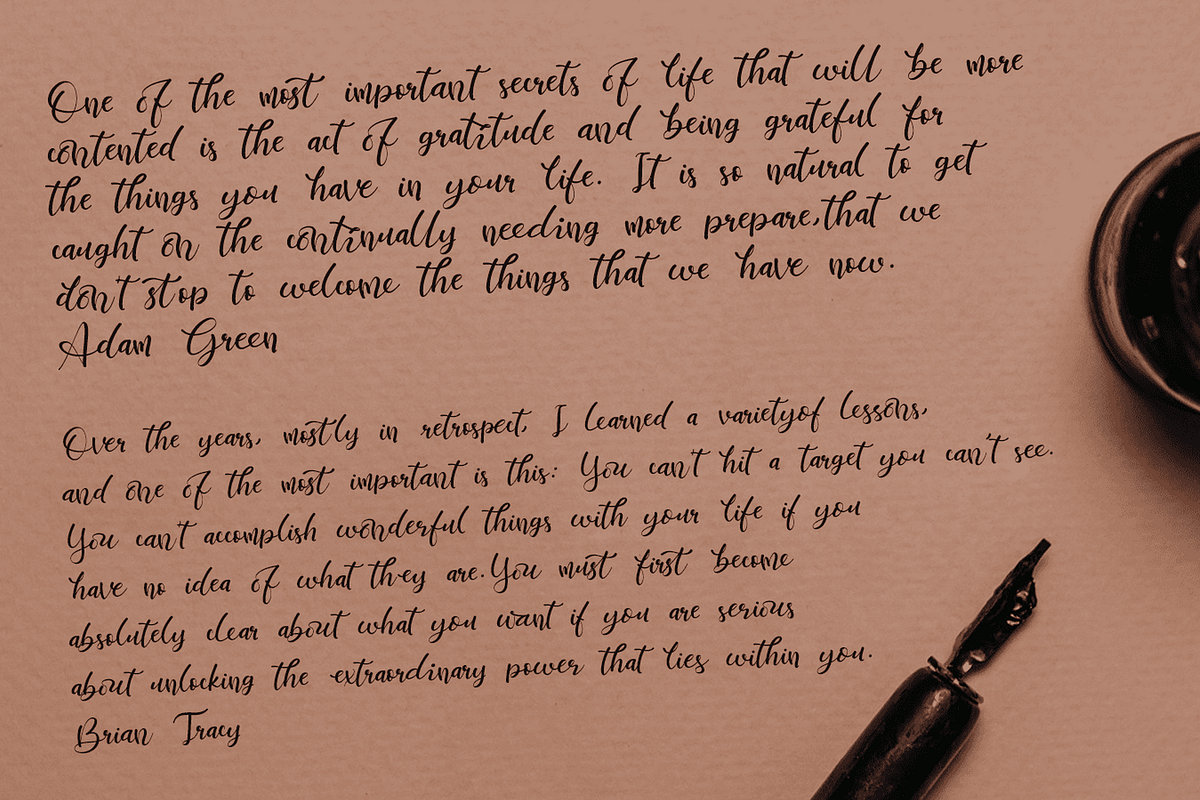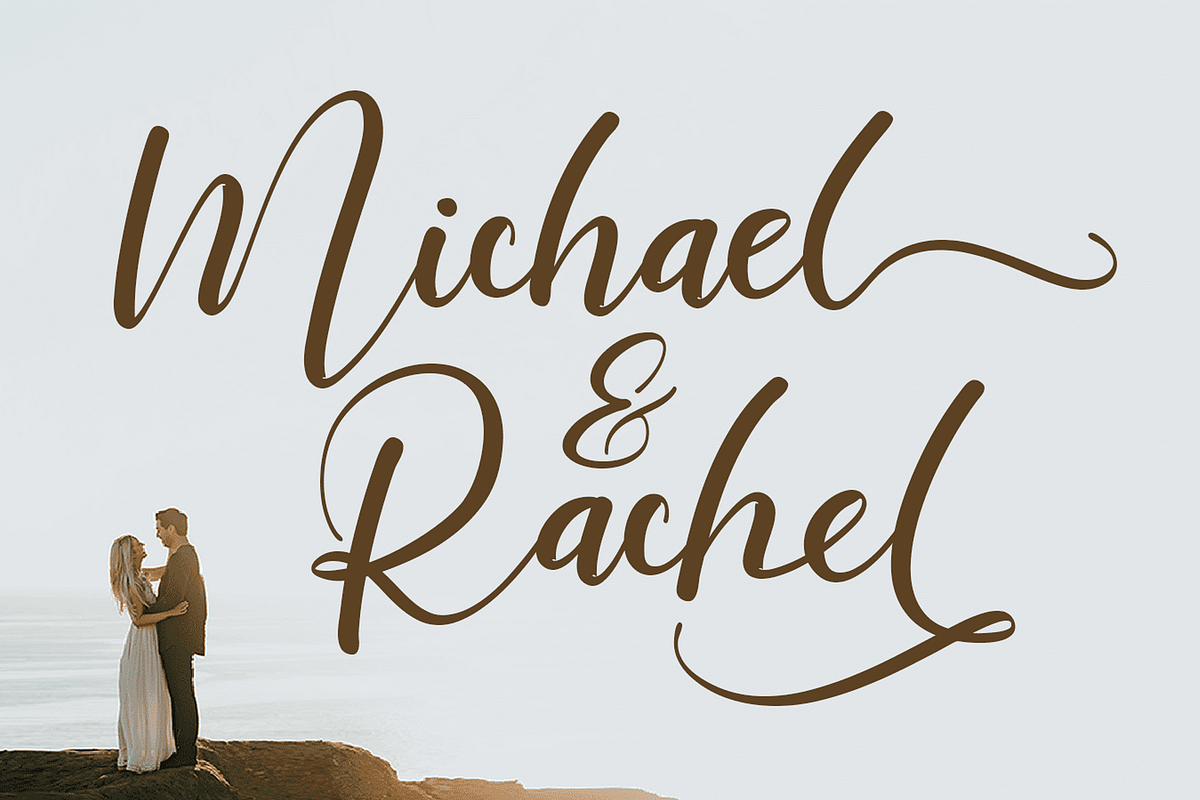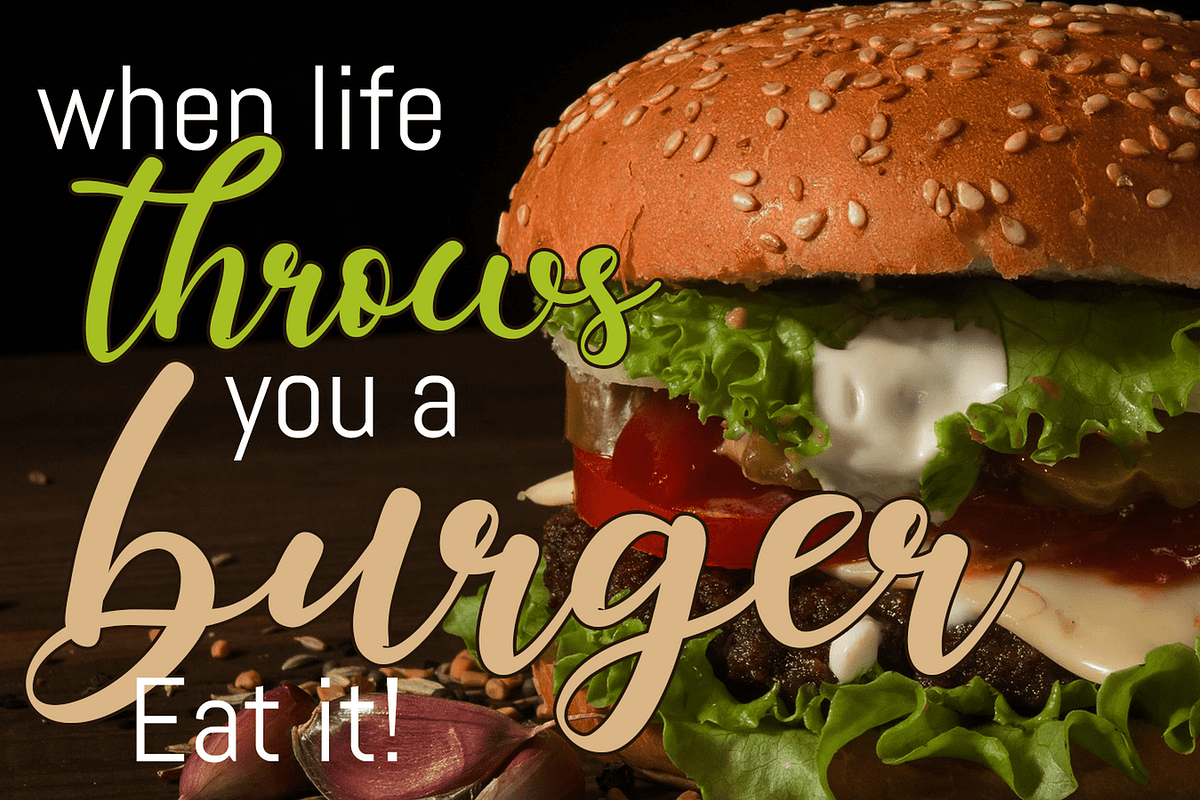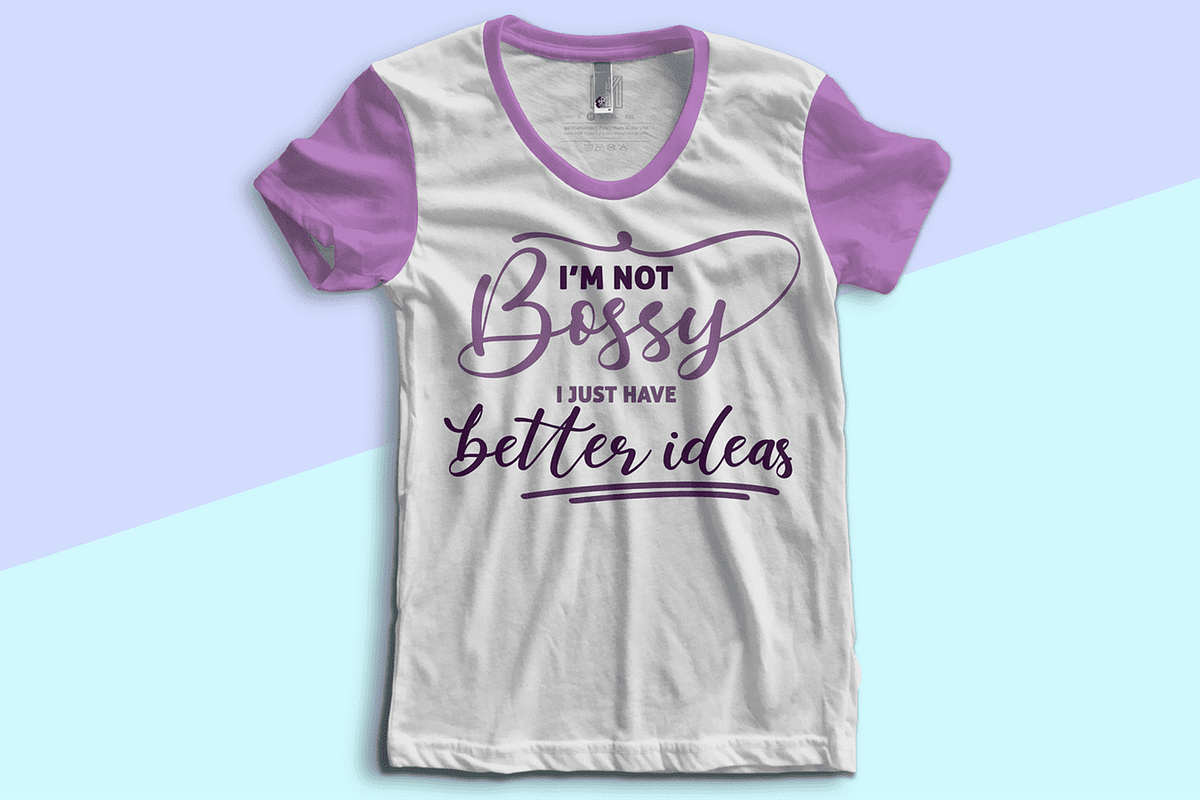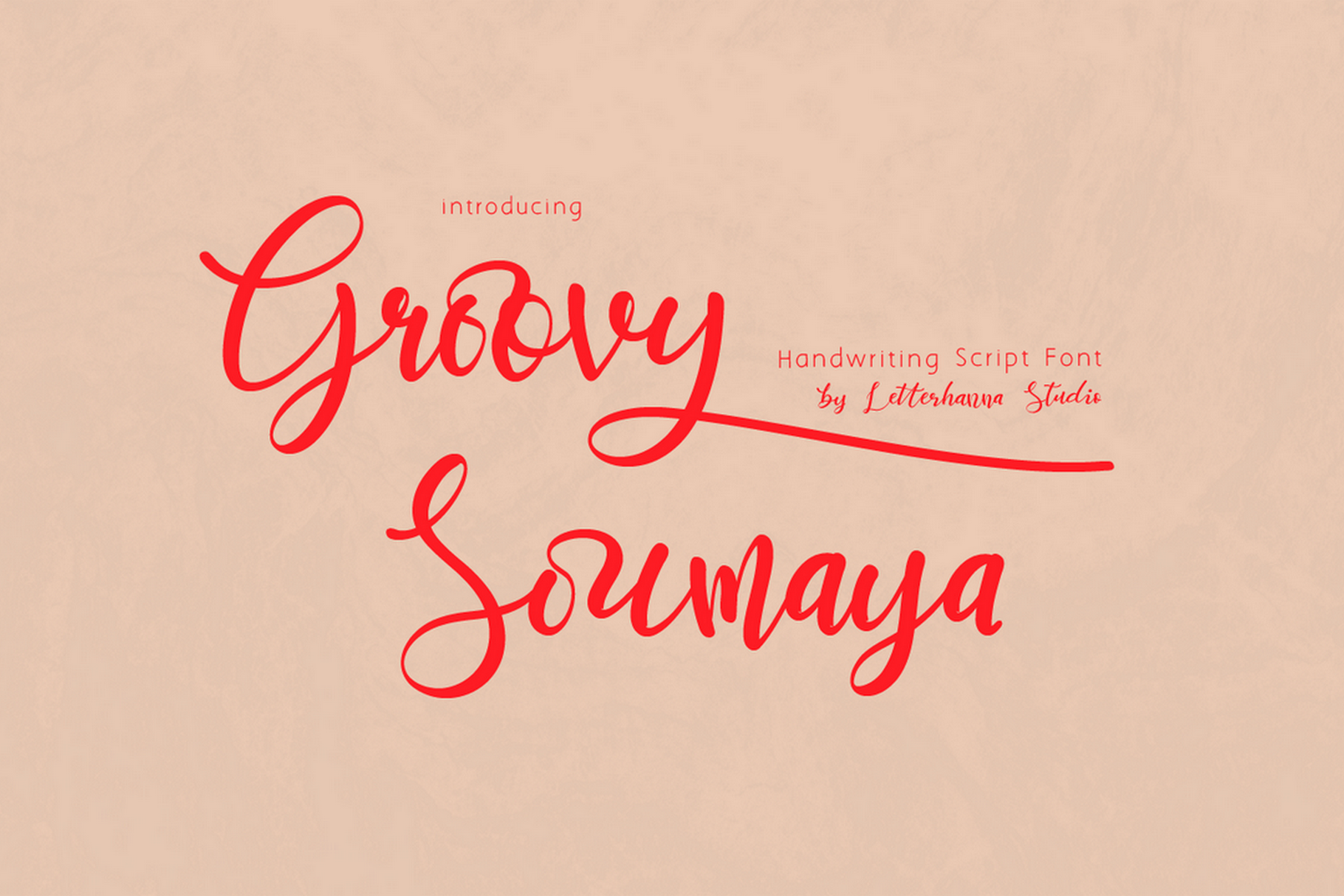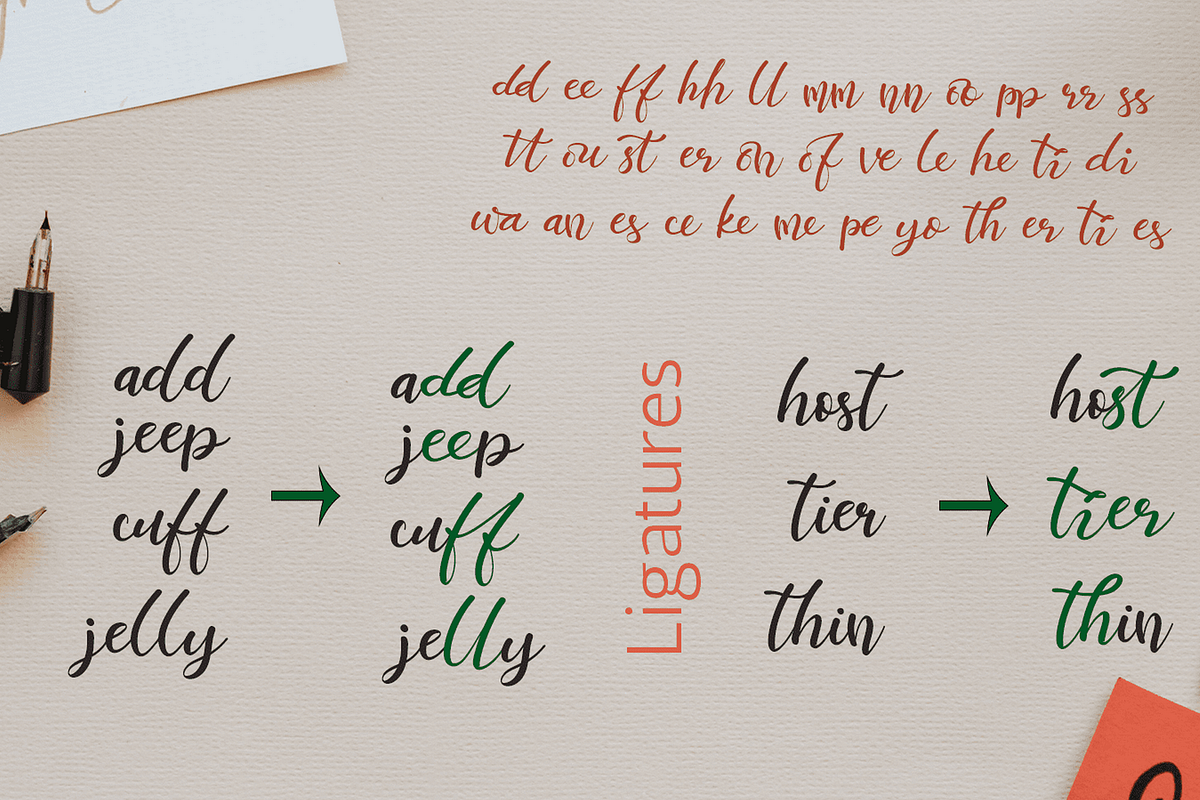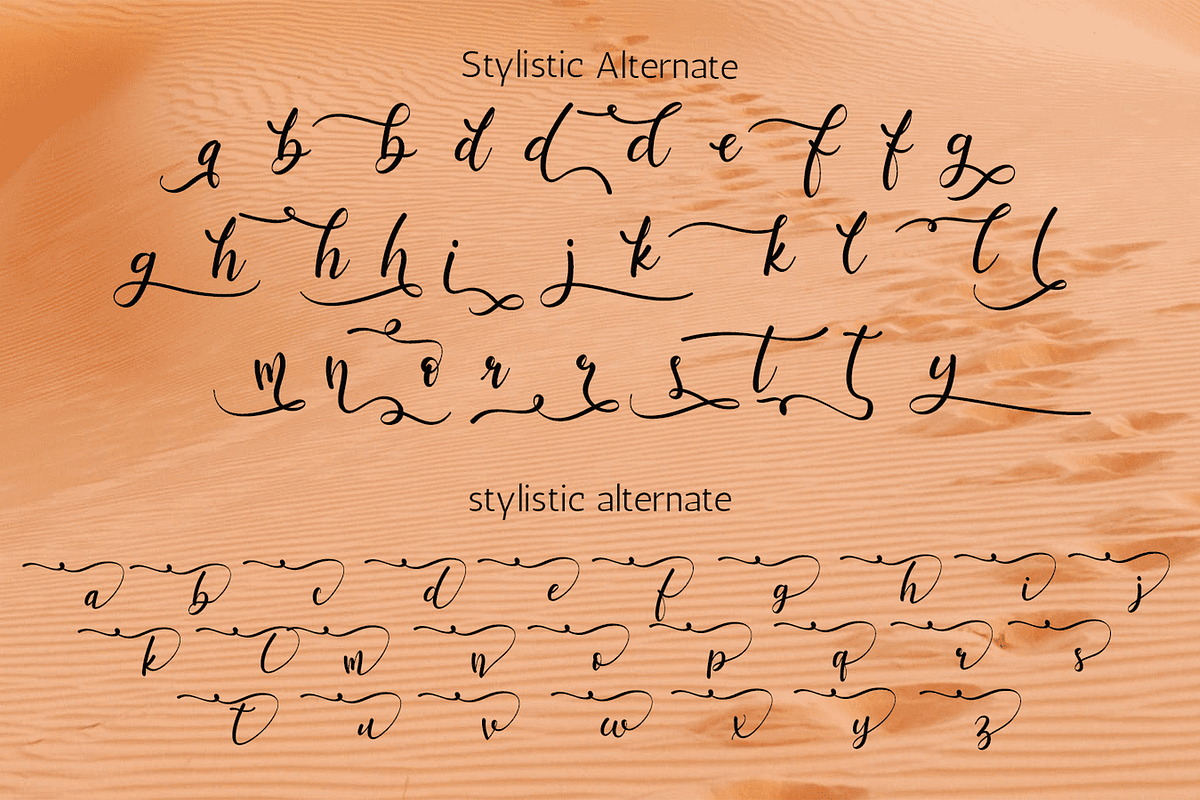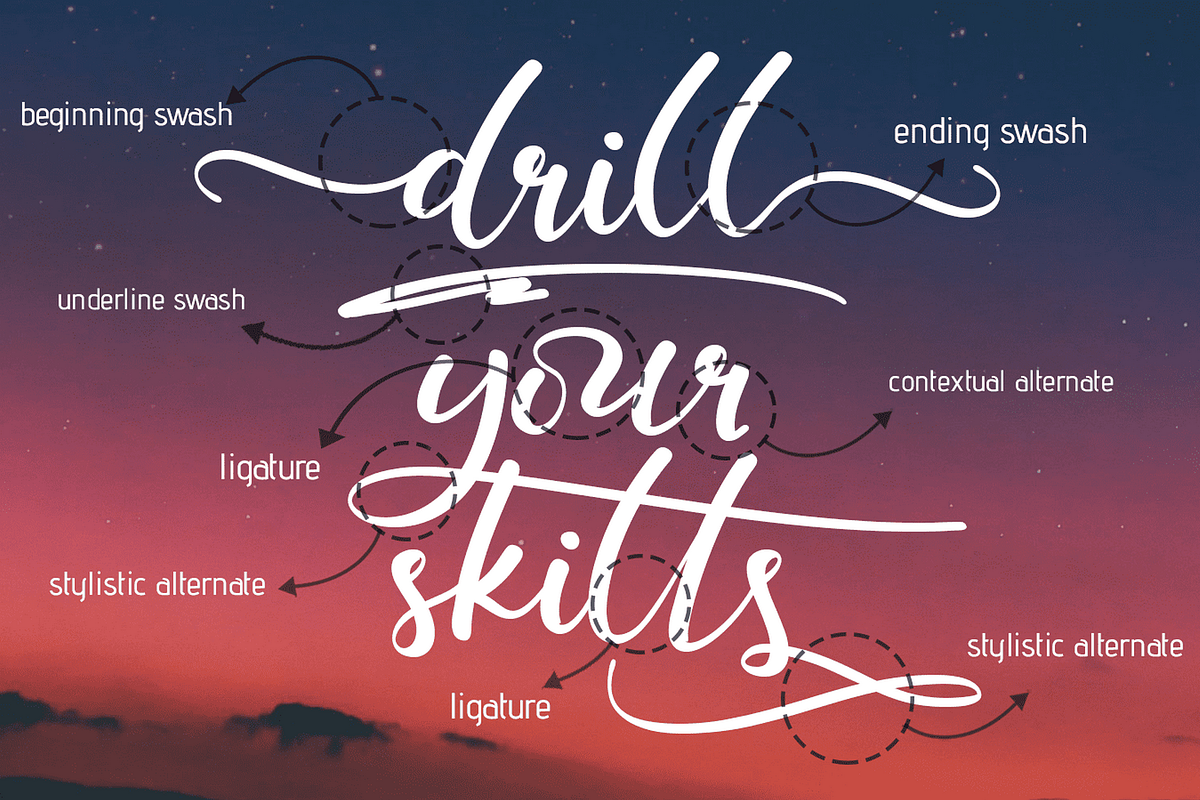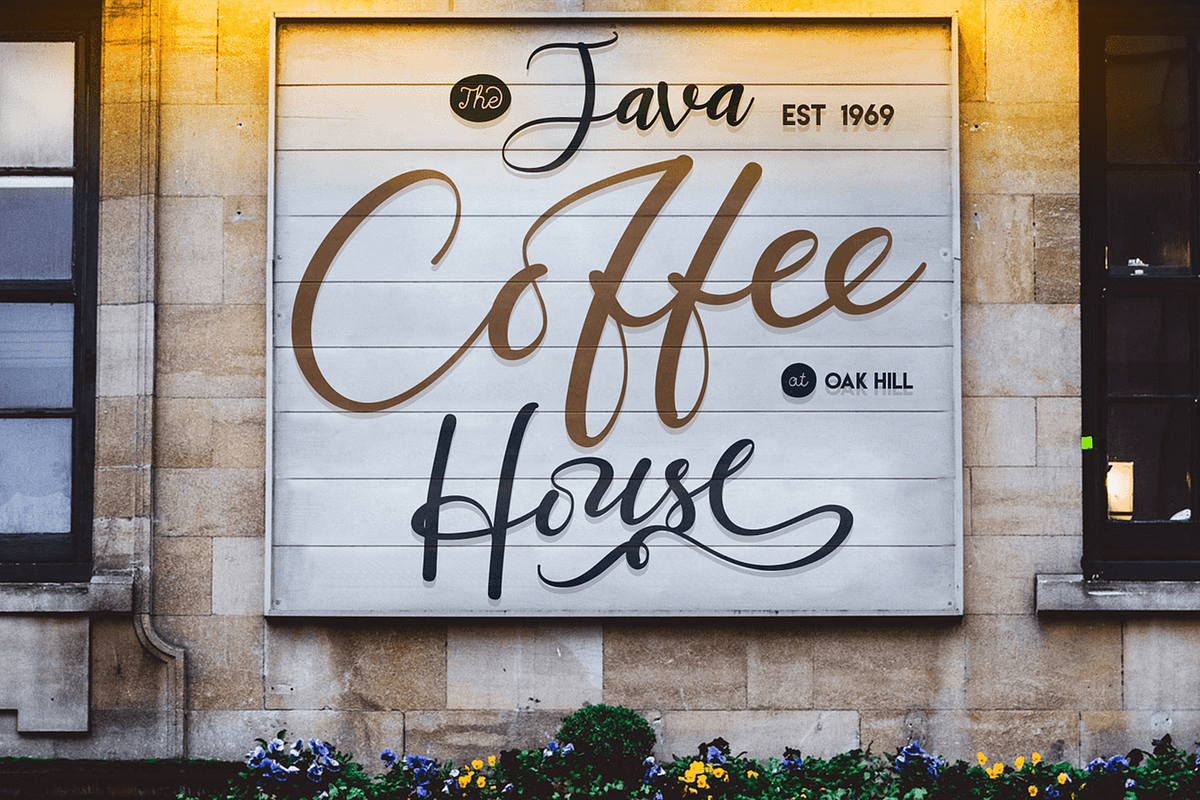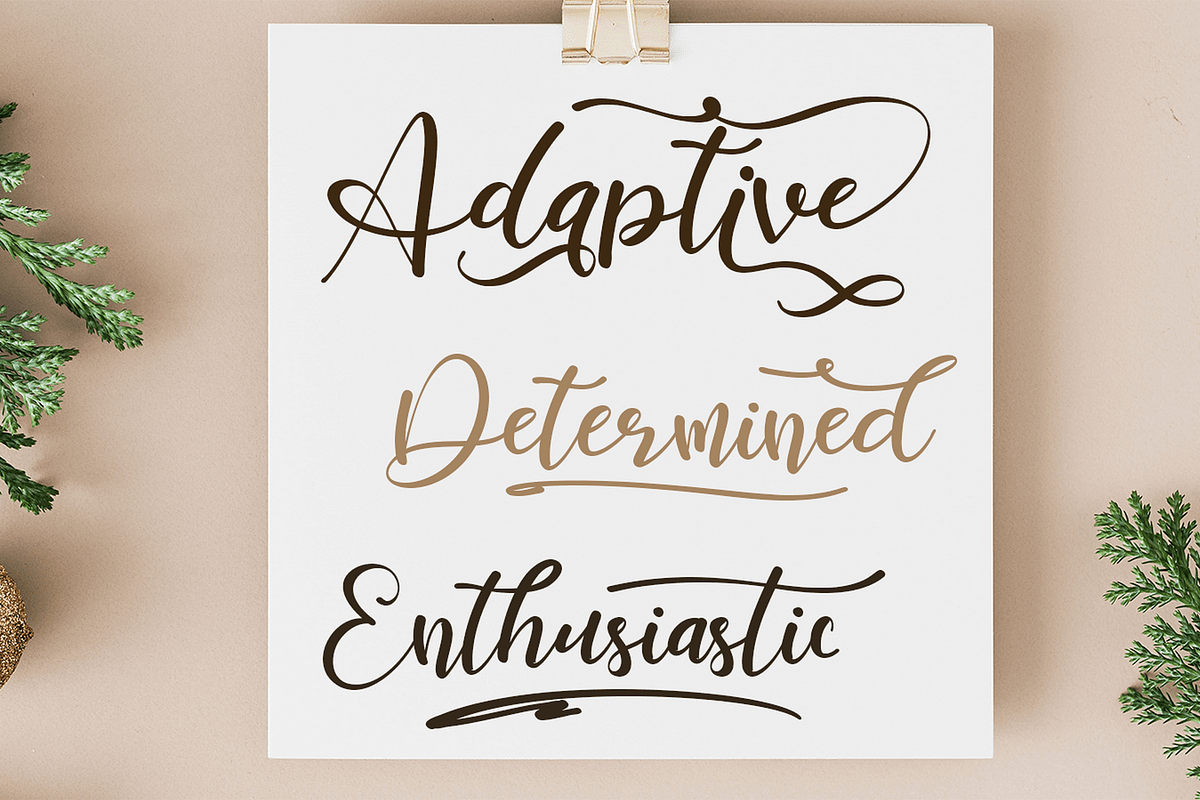
Groovy Soumaya Font
Groovy Soumaya Font is a beautiful and flowing handwritten font. Use it for wall displays, wedding invitations, social media post logos, advertisements, product packaging, product designs, labels, photography, watermarks, invitations, stationery, and any project that requires impressive typography.
To achieve that authentic handwritten feel, Groovy Soumaya Font comes with a full set of lowercase alternates as well as 34 ligatures.
You will get full set of lowercase and uppercase letters, numerals and punctuation, multilingual symbols, lowercase beginning and ending swashes, ligatures, stylistic alternates and extra swashes.
34 Ligatures
Beginning and ending swashes
Underline swashes
Stylistic alternate.